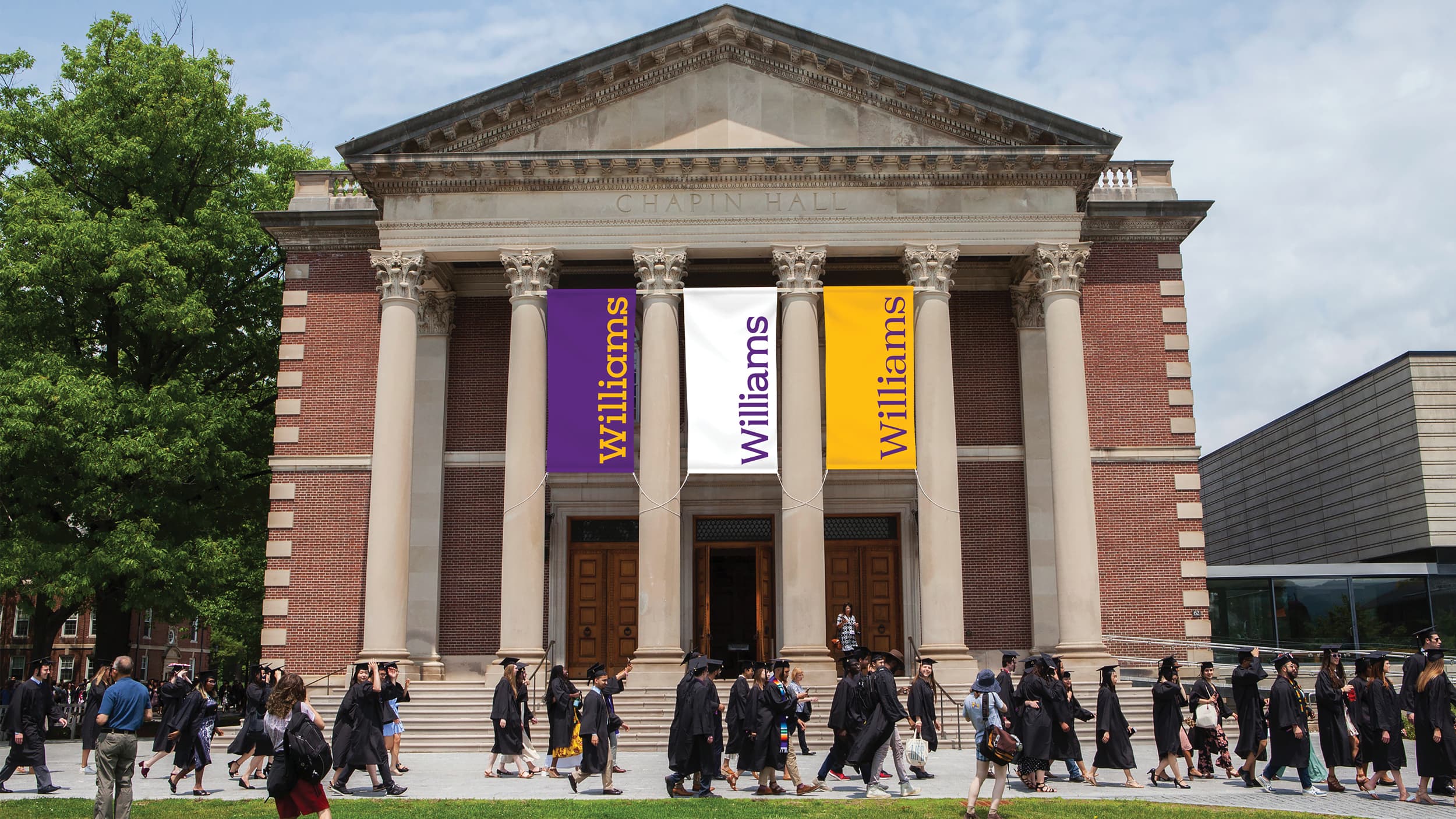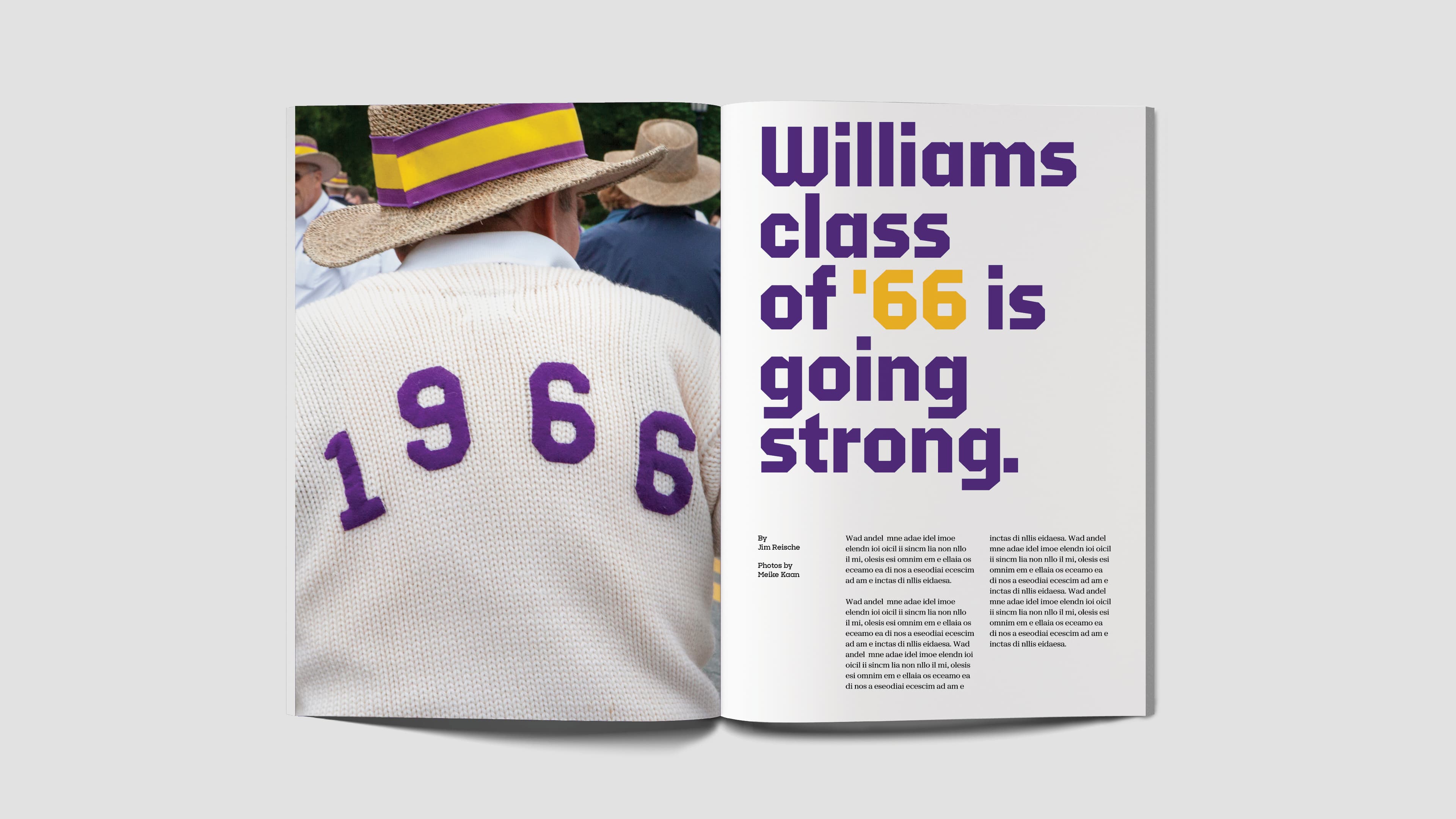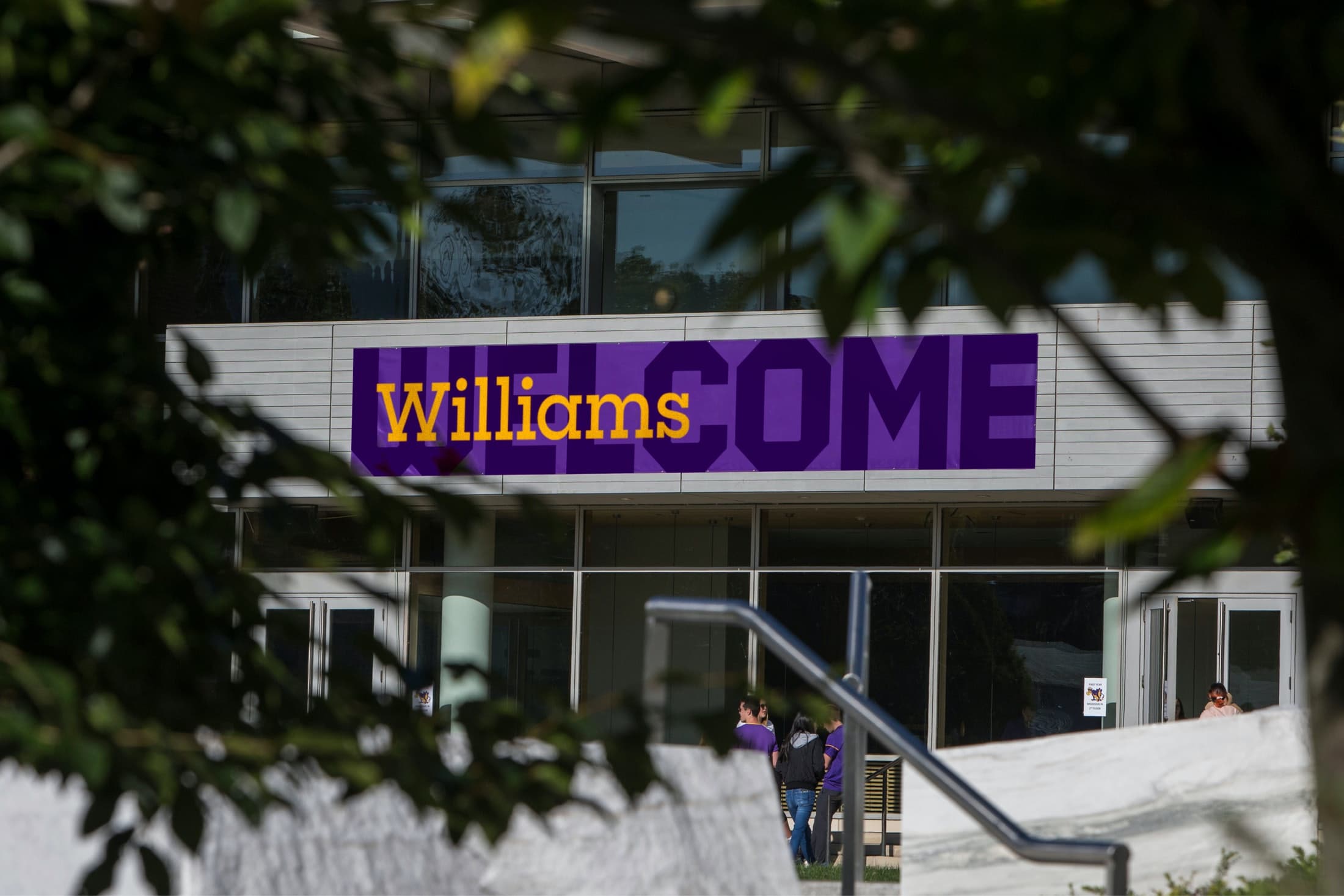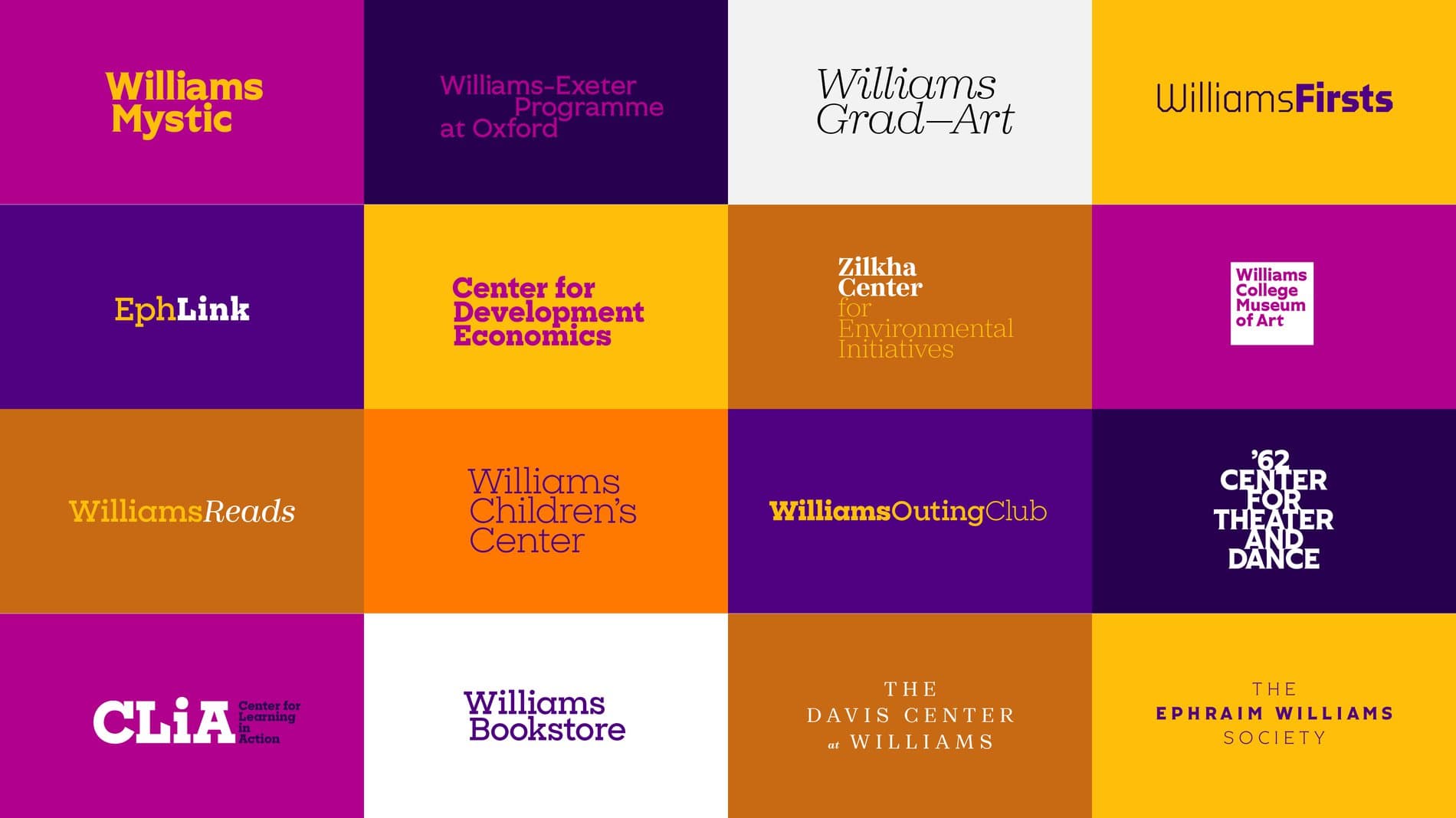
Introducing the Williams College Custom Typefaces: Eph Serif, Light, Italic, Regular, Italic & Bold Italic Eph Slab Light, Regular & Bold. Eph Gothic: Light, Regular & Bold Eph Octic: Light, Regular & Bold.
In 2020, we developed a custom type system with Jesse Reed at order.design for a large-scale identity rebrand for Williams College. The goal was to establish a long-term system that can evolve with the institution while mirroring its immersive academic community. To that end, we developed the Eph Family—a typeface system of four interactive but distinct styles.
Founded in 1793, Williams College stands as one of the nation’s leading liberal arts colleges year after year. It's home to a vibrant community of undergraduate students, and esteemed faculty members who continue to contribute to creative production, intellectual discovery, and academic scholarship. With this in mind, we created a custom suite of typefaces that represent the College’s multi-faceted, vibrant, and dynamic voice.
Eph Slab
Eph Serif
As the College’s official wordmark, the Slab is bold and straightforward, designed to emphasize individuality.
Eph Serif speaks to a classic, sophisticated voice fit for an academic institution, and is updated for a modern era with details like larger proportions and spacious counters.
Eph Gothic
Eph Octic
Eph Gothic references copperplate typeface design, featuring crisp, tapered wedge-shaped serifs, that gives letterforms subtle and stylish flair.
Eph Octic takes cues from stone carvings found on building exteriors throughout campus. Made up of angular strokes, Octic’s geometric design amplifies Williams’ fighting spirit, and their athletics teams—the Ephs.
A common structure
The Ephs family includes four distinct typefaces: Eph Slab, Eph Serif, Eph Gothic, and Eph Octic. These have been designed to interact with each other to create an expressive harmony of voices. At the same time, while they share a core skeleton, they can stand on their own—highlighting the individuality and range of character found on campus. We used Sharp Sans as a jumping off point, referencing its large x-height, compact proportions, and spacing. Each typeface includes 3 weights: Book, Semibold, and Bold, for a total of 12 fonts.
Capturing the spirit of the Ephs
During the research phase at Williams’ library archive, Reed and his team saw that the college’s communication materials historically featured an eclectic variety of typefaces. The concept of «typographic diversity» became a clear driving point for the new identity. From detailed lettering on 20th century Ephs basketball tickets and The Williams Recordnewspapers, to painted and carved contemporary signage downtown, these anecdotes are all referenced and woven into our custom-designed font family.
Ephelia The Purple Cow
In addition to the Ephs typeface family, we had a lot of fun designing additional visual components for Williams’ official mascot: Ephelia, the purple cow. Lucas Sharp drew the Ephelia insignia by referencing issues of The Purple Cow, a 20th century humor magazine published at Williams. My-Lan Thuong drew a second insignia that captures Ephelia’s tough, fighting spirit, used by Williams’ athletic teams.